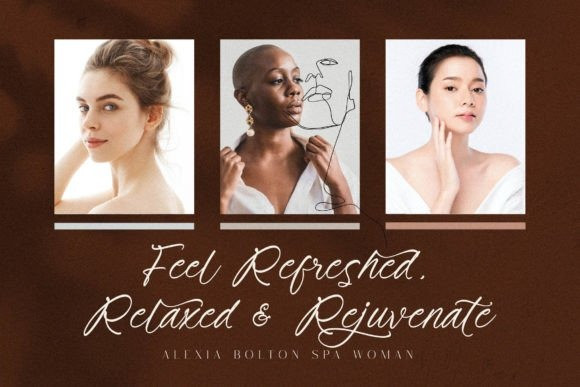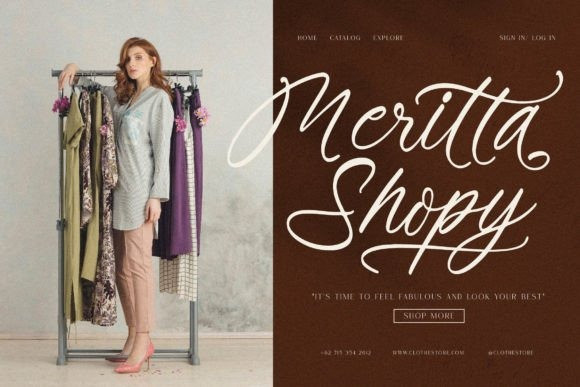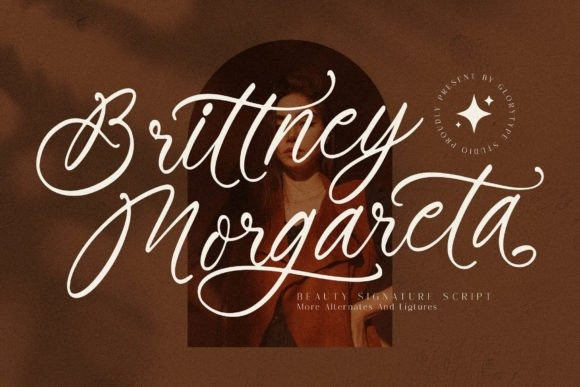
Brittney Morgareta Font
Brittney Morgareta Font is a beautiful, signature font, suitable for any project such as logos, branding projects, homeware designs, product packaging, mugs, quotes, posters, shopping bags, t-shirts, book covers, name card, invitation cards, greeting cards, label, photography, watermark, special events, and all your other lovely projects that need a beautiful script taste.